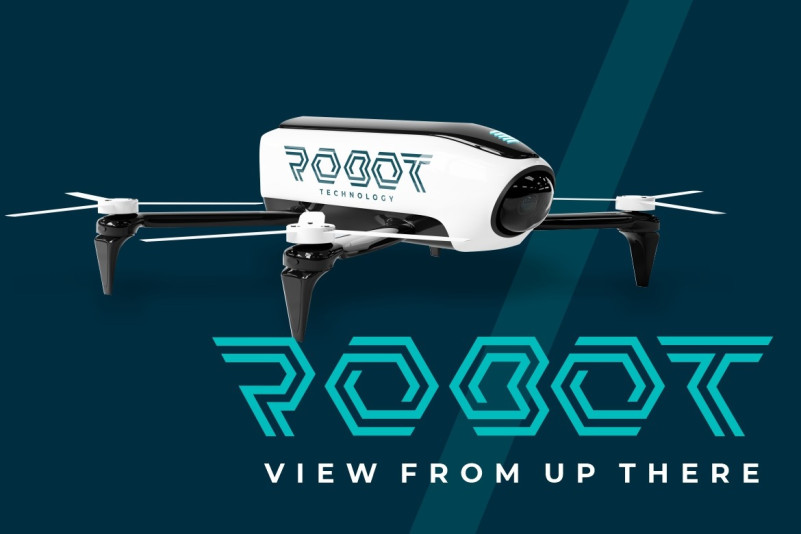
Drone Font
DRONE Display Font is a modern display font with geometric line art style that will make your design looks hi-tech and modern. You can use this font for any purpose, especially to make logotype. this font available in all caps only.